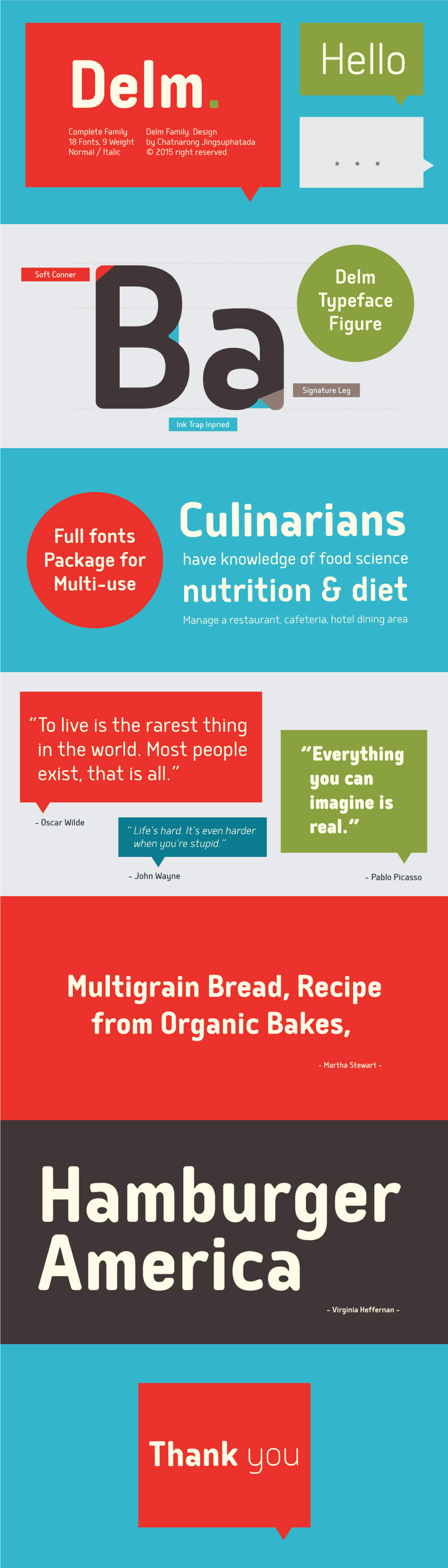
4 Contemporary Font Families from Typesketchbook
Highlights:
- 4 Fantastic font families – Breul-Grotesk, Delm, Betm, Orev;
- Regular and Italic styles;
- Multiple weights from Thin to Light to Bold to Extrablack;
- Great choice for editorial design, Web design, posters, T-shirts, and more;
- Variety of OpenType features – ligatures, multilingual support.